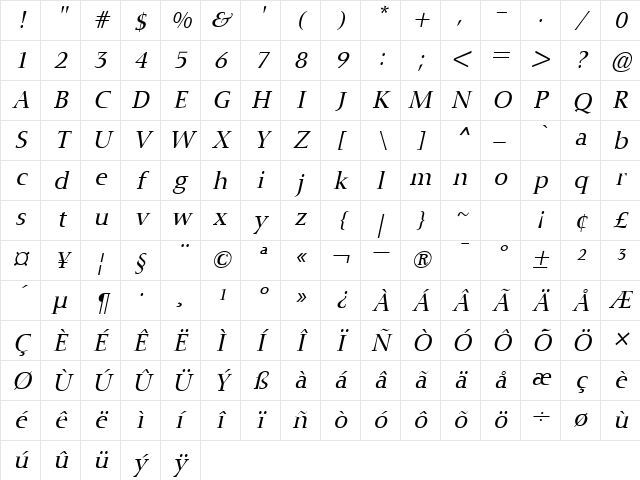
Ottawa Oblique
Design Context for Ottawa
Ottawa is a composed and adaptable typeface that performs quietly and consistently across a wide range of design contexts. The slanted form adds forward momentum and visual energy.
Pro Tip: Use Ottawa for emphasis, pull quotes, and subheadings where its slanted energy can add rhythm to the layout.